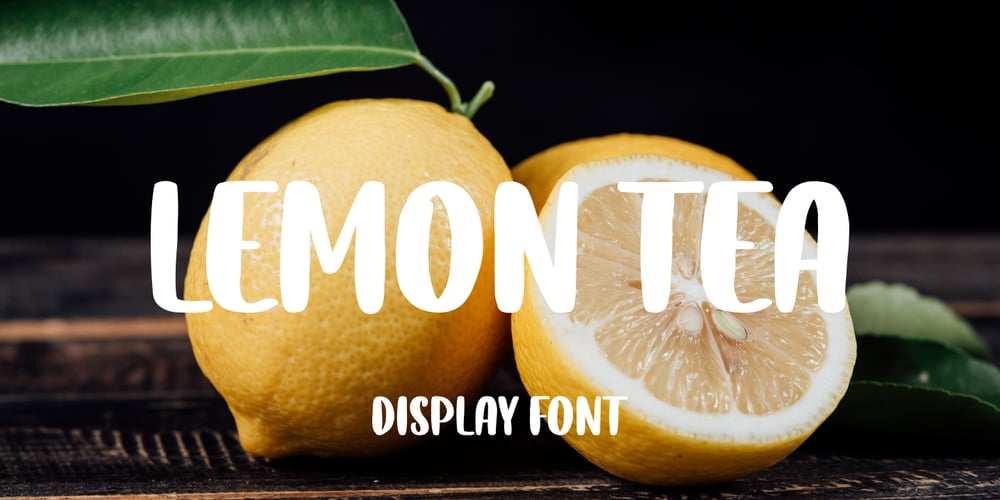
Lemon Tea
Lemon Tea font
Lemon Tea Font Family was designed by Muhammad Fikry and published by Fikryal. Lemon Tea contains 1 styles and family package options. Lemon Tea is a fancy font perfect for crafting, branding, invitation, stationery, wedding designs, social media posts, advertisements, product packaging, product designs, label, photography, watermark, special events or anything.Lemon Tea with full set of uppercase letters, multilingual symbols, numerals and punctuation.